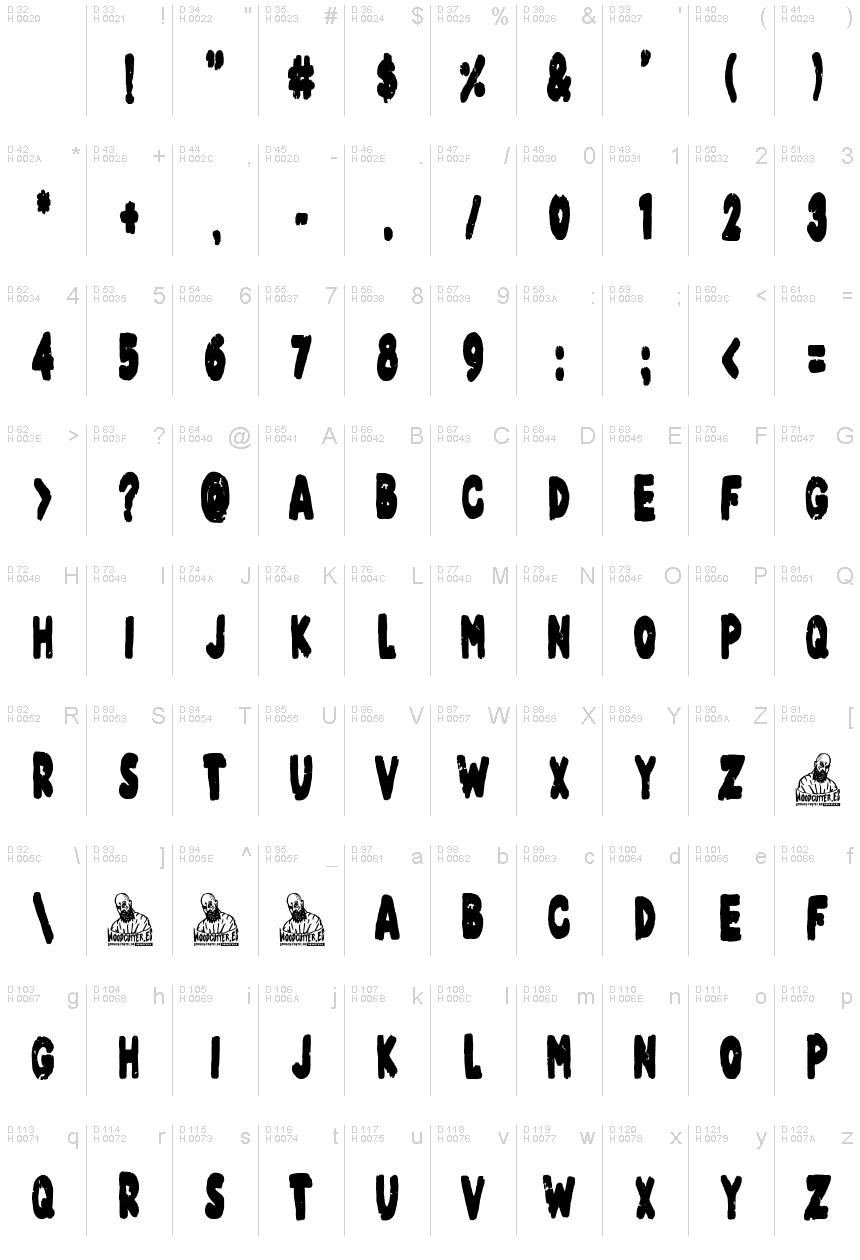
Terror Farm
Terror Farm, a spine-chilling creation by Woodcutter, is a bold and extra-condensed display font that will send shivers down your spine.
Perfect for haunted house flyers, horror movie posters, and Halloween party invitations, this scary typeface adds an eerie touch to any project. Its bone-chilling style captivates audiences with its terrifying charm.
Let Terror Farm bring your nightmares to life as you embark on a journey through the darkest corners of design.